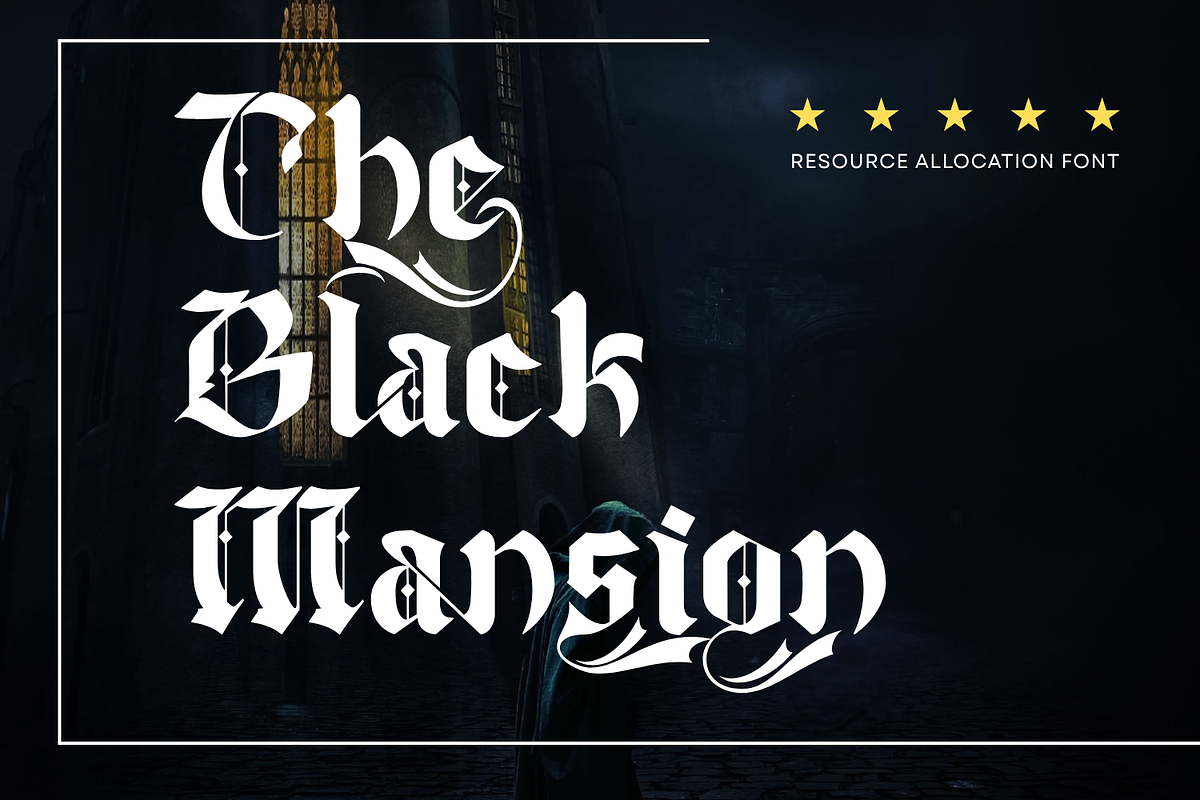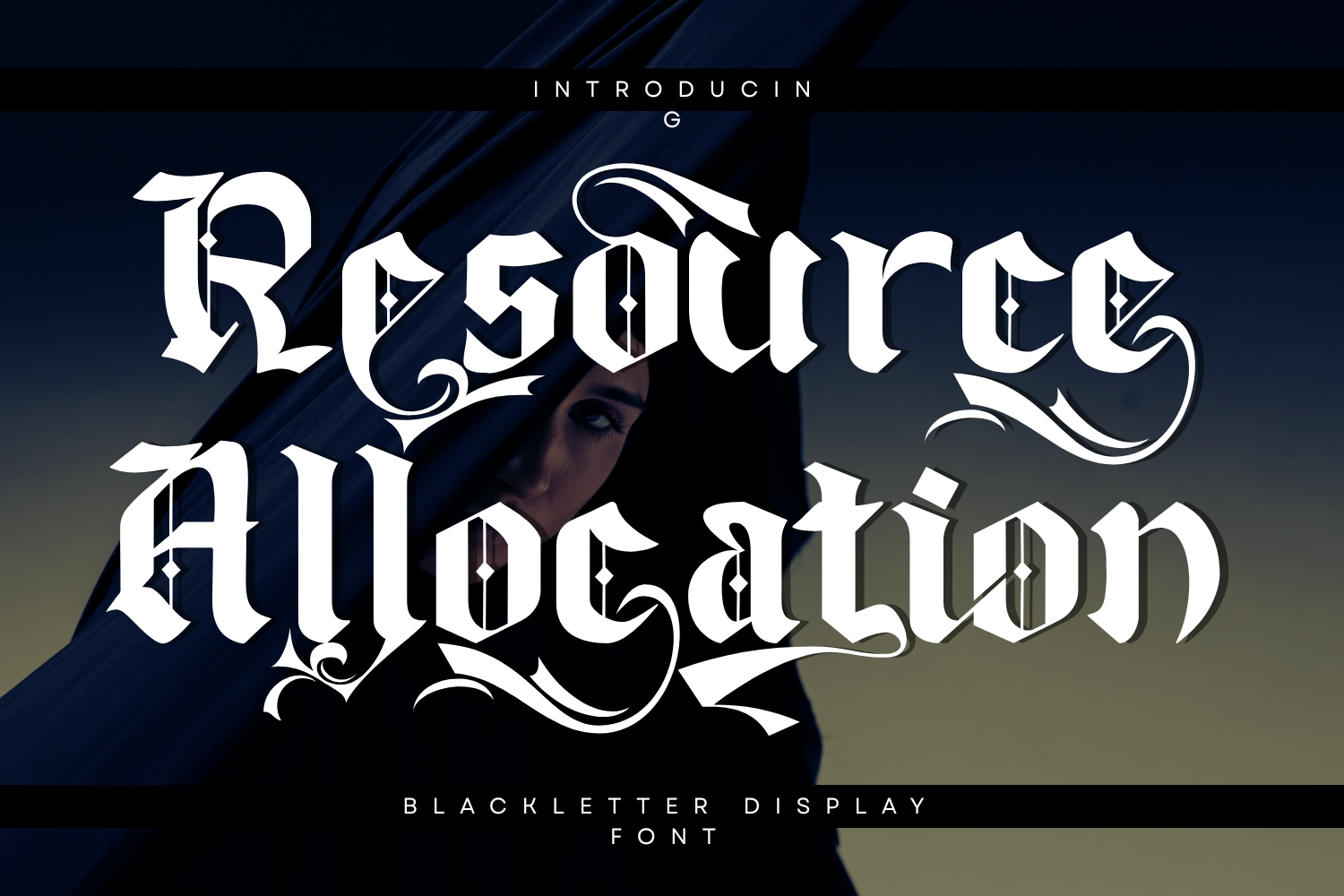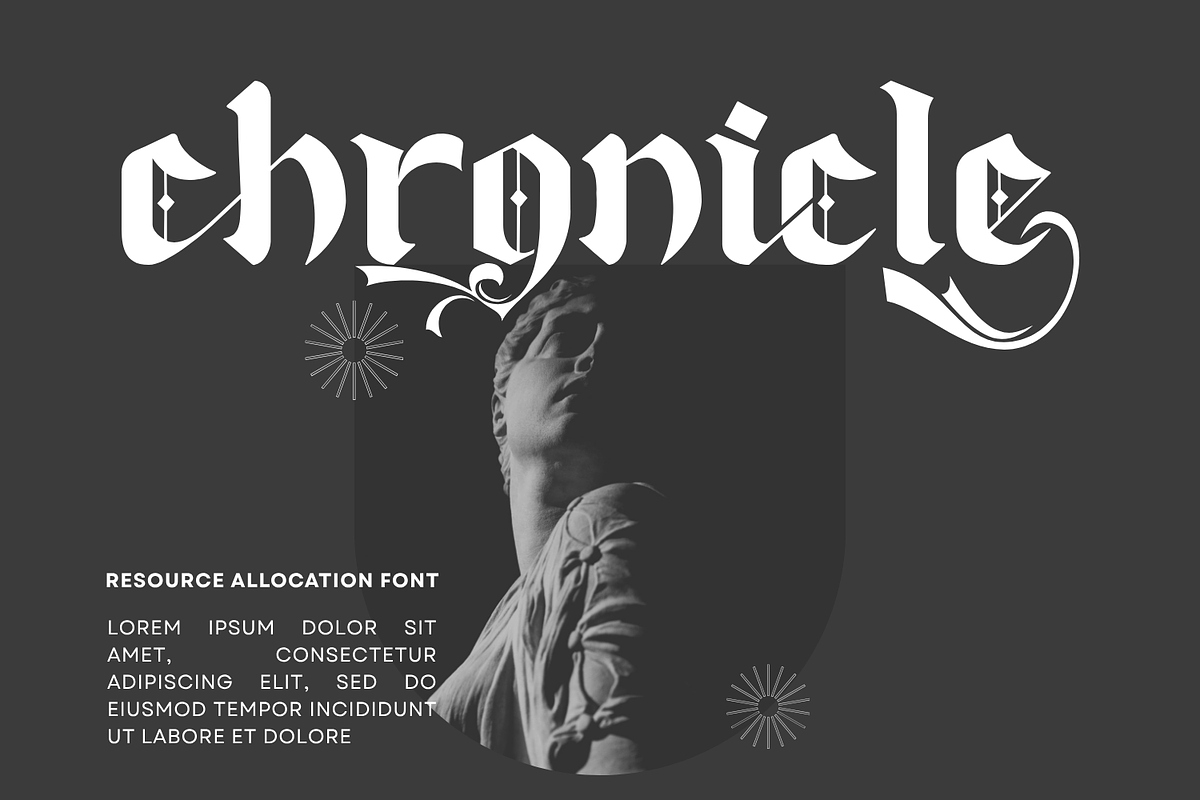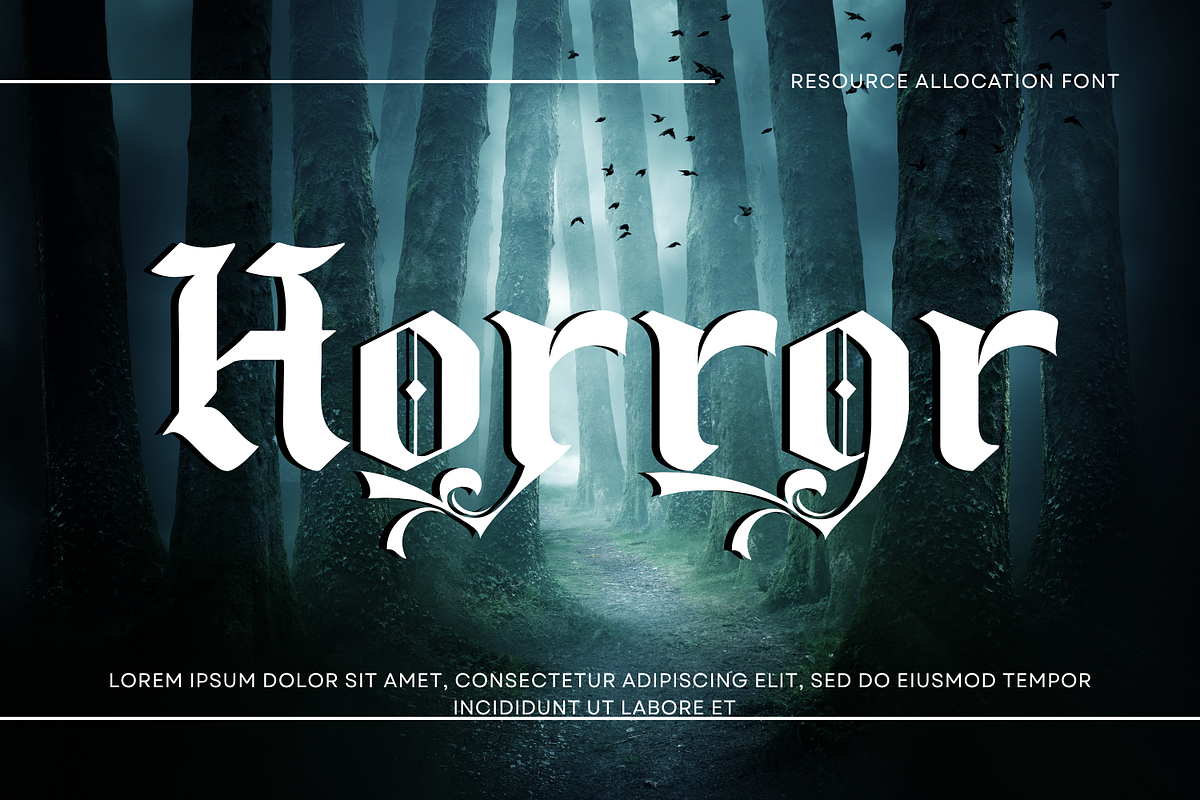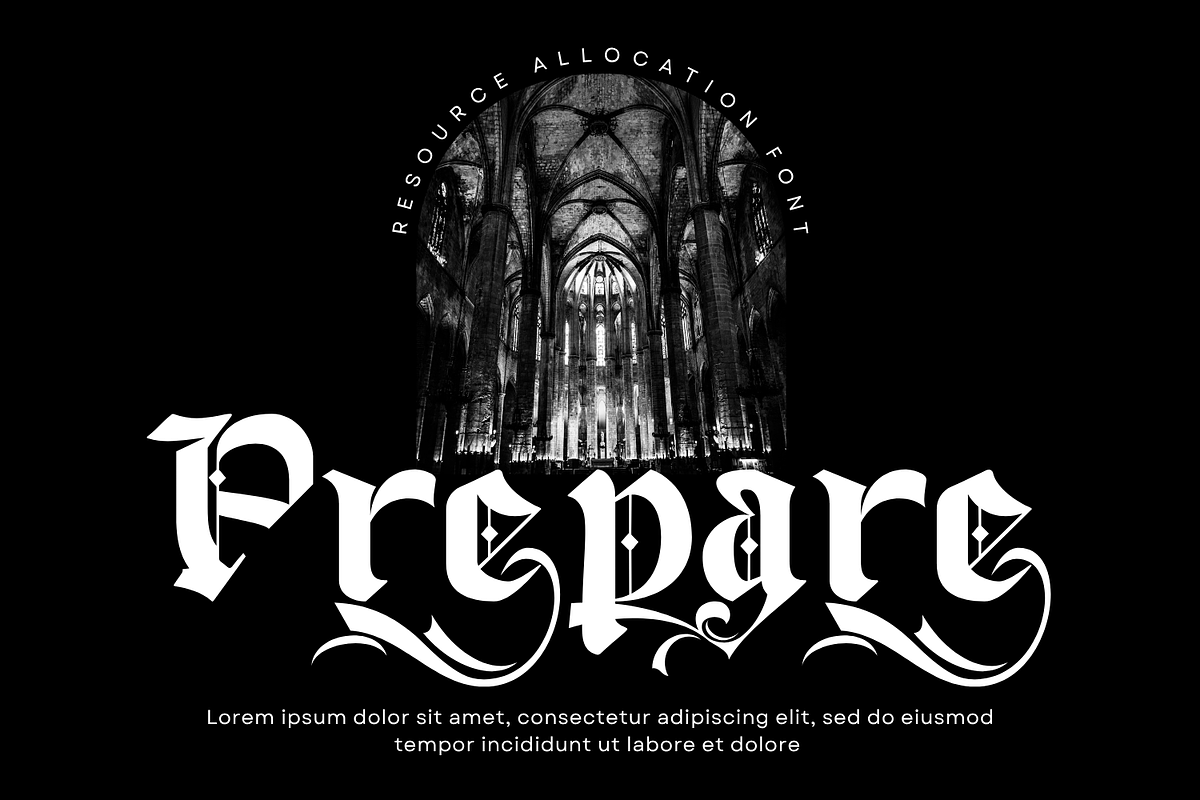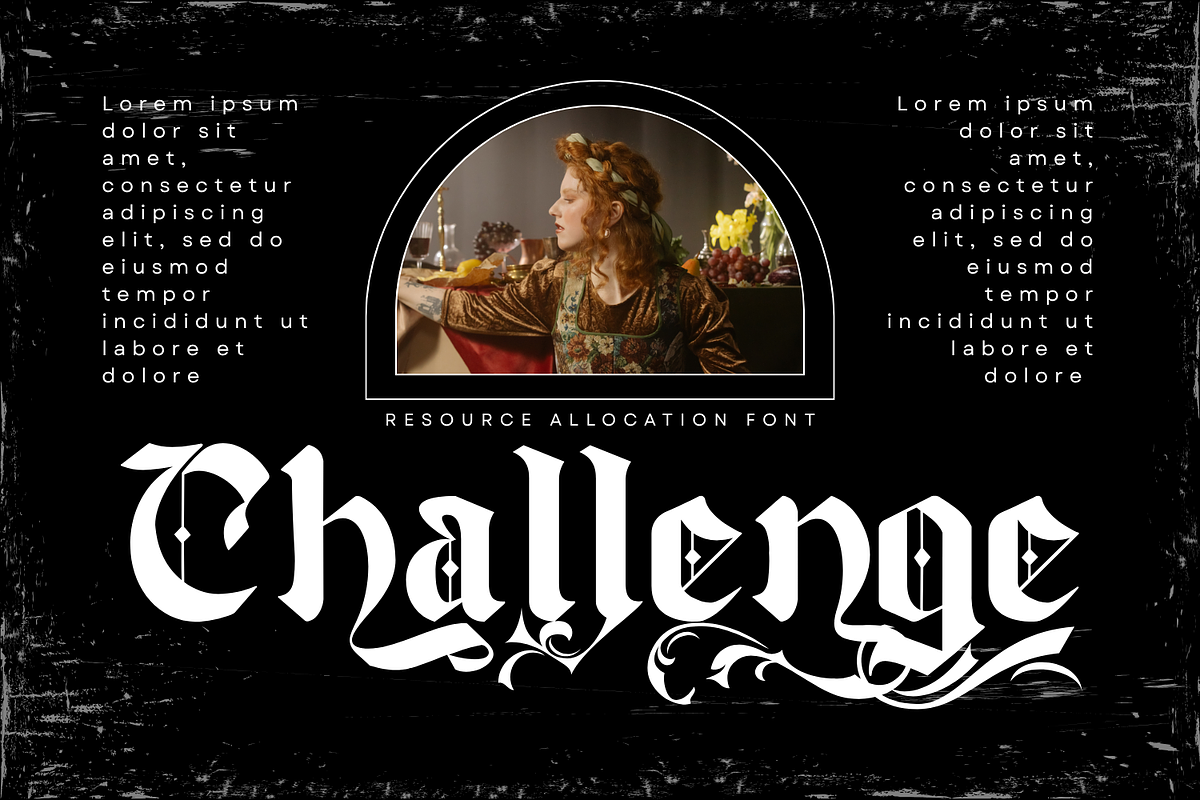
Resource Allocation - Gothic Font
Resource Allocation - Gothic Font is a bold blackletter display font inspired by classic Gothic and Old English typography, enriched with modern ornamental details. Featuring sharp angular strokes and dramatic contrast, this typeface captures a strong historical character while maintaining a refined and stylish appearance. Each letter is carefully crafted with decorative swashes, intricate cuts, and unique inner details, adding depth and personality to every composition. The flowing flourishes and ornamental extensions create a sense of movement and elegance, making the font both powerful and artistic.
🔤Features:
Uppercase & Lowercase Letters
Around 100 Special Ligatures & Alternates
Accented Characters for multilingual support
🔤About 100 ligatures combined with Stylistic Alternates Font:
ac ad al an ar as at au av be ca ce ch co ct de di ea ec ed ee el em en ep er es et fe fo fr ge ha he hi ho ie ic il in io ir is it ju ke la le li ll lo ly ma me mi nc nd ne ng no nt ns oc of om on oo op or ot ou ow pa pr ra rd re ri ro rs rt se sh si so ss st ta te th ti to tr tt um un ur ve wi wo